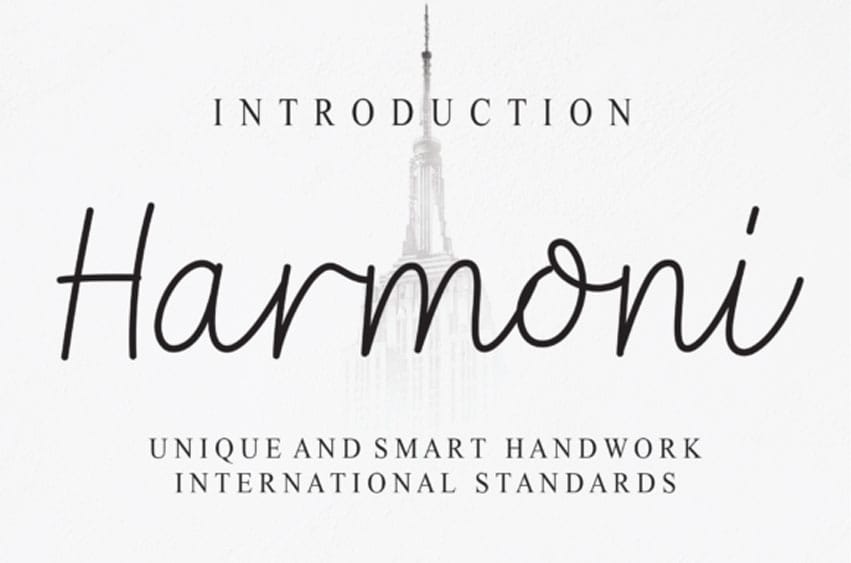
Harmoni Script Font is a thin and delicate handwritten font. It has beautiful and well-balanced characters, and as a result, it matches a wide pool of designs.